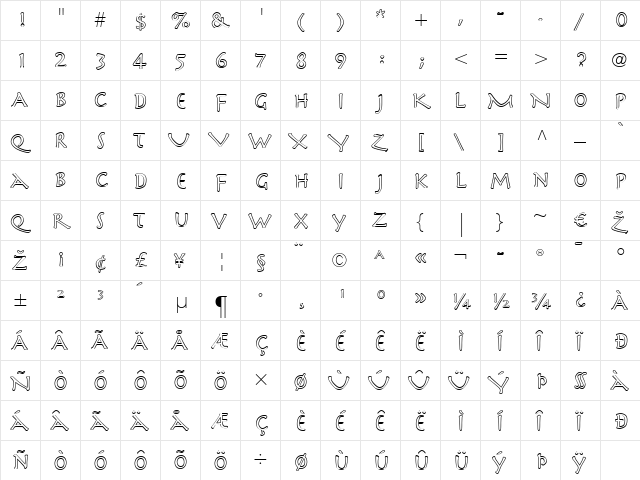
Herculanum LT Outline Regular
| Foundry | Linotype Library GmbH |
| Designer | Adrian Frutiger |
Design Context for Herculanum LT Outline Typeface
Herculanum LT Outline is built around its visual character rather than neutral utility — its distinctive forms are designed to make an impression at display sizes. The delicate stroke weight brings airiness and refinement to layouts.